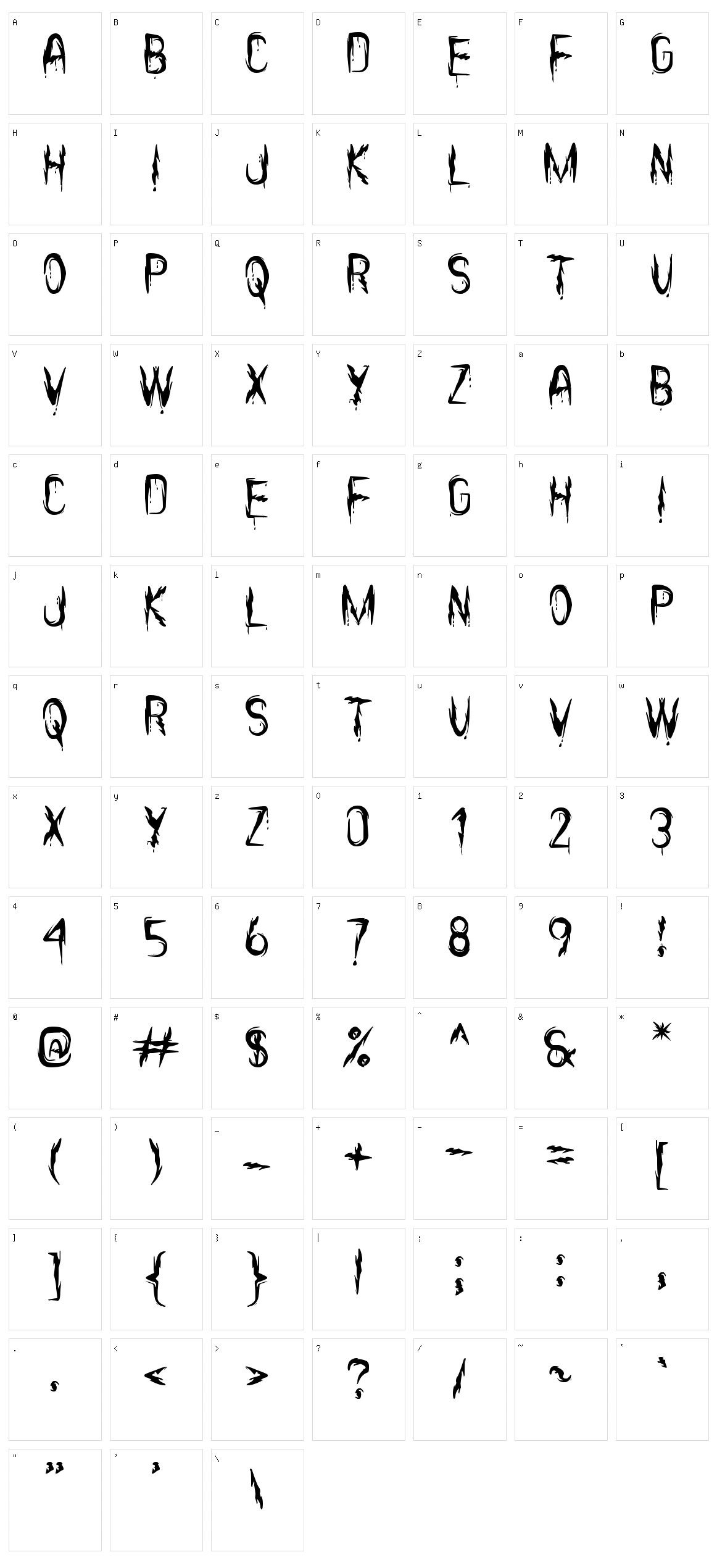
The free font It's Scary Now St is carefully designed by Southype, showcasing a thoughtful balance of creativity and usability and falls under the Horror font style. When you download the ZIP file, it contains only 20.26 KB of font files, making it lightweight and quick to download. Please review the license details below to understand permitted usage and distribution rights. If license information is not available, we recommend using this font for personal projects only or contacting the author directly for commercial usage permissions.